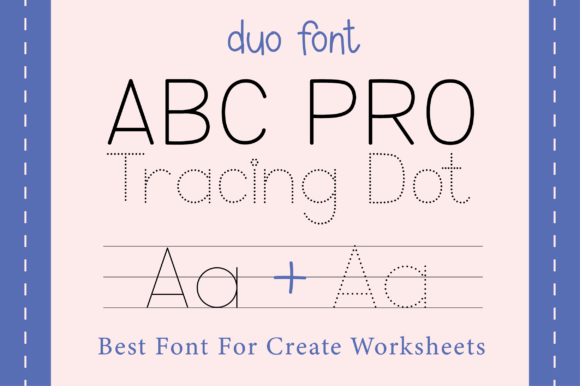
Simplify Your Handwriting with a Fun Twist
Remember the joy of creating with crayons as a child? The feeling of bringing a blank piece of paper to life with vibrant colors and bold lines? As we grow older, our creative outlets often become more refined and structured, but that doesn’t mean we can’t tap into that same sense of wonder and excitement.
Enter the Abc Pro Tracing Dot Font, a clever tool designed to make learning and practicing handwriting a fun and interactive experience. This innovative font features dotted lines to guide your writing, making it perfect for kids and beginners looking to master the basics. But its value extends beyond the classroom – it’s also a valuable resource for designers seeking to improve their handwriting skills or create engaging educational materials.
Key Features of Abc Pro Tracing Dot Font
- Font Style: Dot font with tracing lines, ideal for hand-drawn or tracing applications.
- Unique Characteristic: The tracing lines are designed to be easy to follow, making it perfect for children and beginners to practice their drawing skills.
- Vector Graphics: The font is designed as vector graphics, allowing for scalability and flexibility in various design applications.
Review: Abc Pro Tracing Dot Font
Overall, I’m quite impressed with the Abc Pro Tracing Dot Font. Here are a few things that work well:
- ✨ The font is highly customizable, allowing for precise control over the dot spacing and size, making it perfect for tracing and lettering exercises.
- ✨ The font is well-suited for both digital and physical tracing, as the dots are clearly visible and easy to follow.
- ✨ The font is highly versatile, making it suitable for various age groups and skill levels.
However, I do have a few reservations:
- ⚠️ The font is quite dense, which can make it difficult to read at larger font sizes.
- ⚠️ There is limited flexibility in terms of color options, which may not be ideal for designers who prefer to work with a wider range of colors.
Overall, I think the Abc Pro Tracing Dot Font is a solid choice for anyone looking for a reliable and customizable font for tracing and lettering exercises. While it has some limitations, its versatility and customizability make it a great option for a wide range of users.
Use Abc Pro Tracing Dot Font for projects that require a unique, hand-drawn look.
Experiment with different font sizes and styles to achieve the desired effect.
Combine Abc Pro Tracing Dot Font with other fonts or graphics to create a visually appealing design.
Abc Pro Tracing Dot Font is commonly used for:
Children’s educational materials
Artistic projects
Handmade or craft